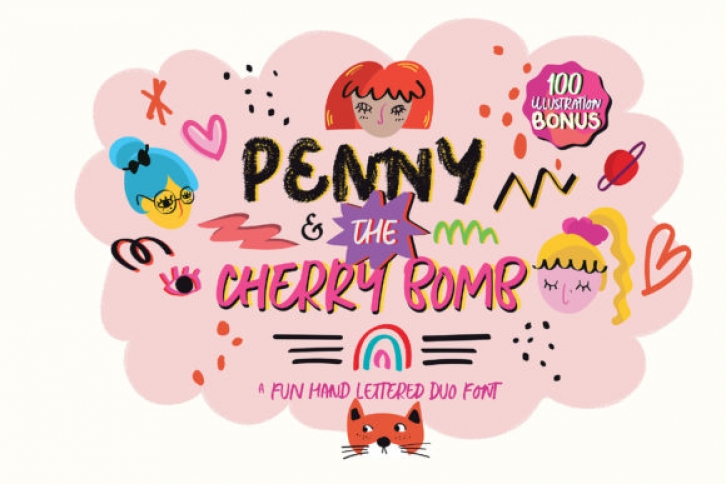
Penny & the Cherry Bomb is a lovely and unique display duo font (regular and chalk like). Its authentic look and feel will add a personal and realistic feel to your designs.